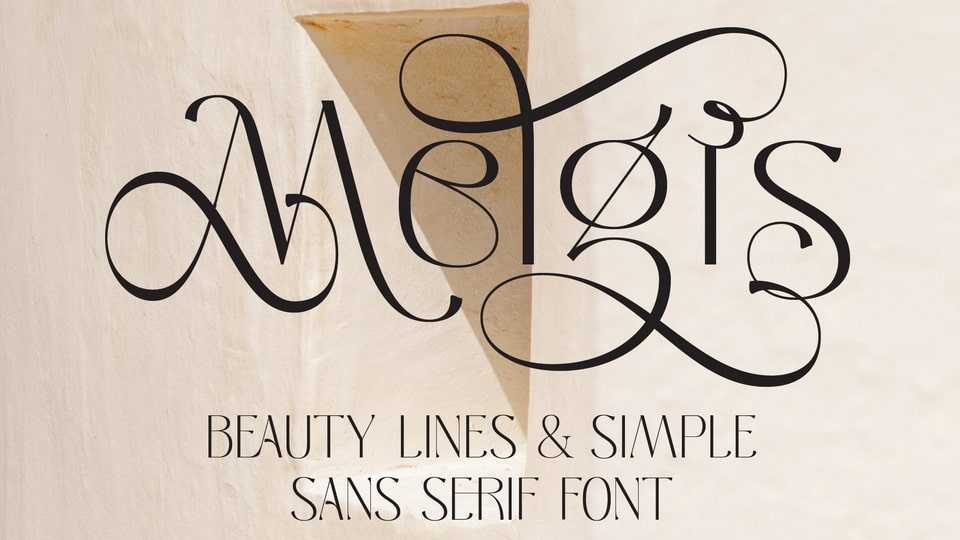
Download Melgis font, an elegant sans serif typeface with beautifully curved lines to become a complete beauty all in one. Melgis font is ideal for beauty brand design with swash glyph suitable for your beautiful elegant design concept.
Designer: Authentype